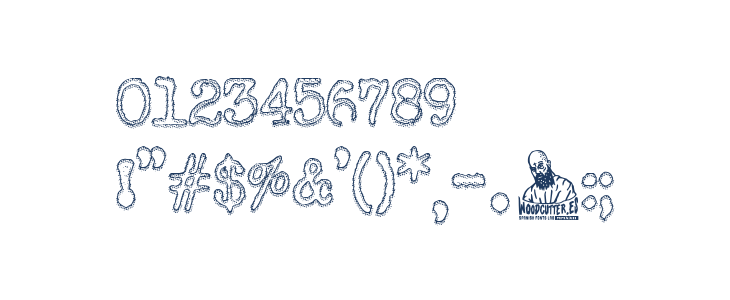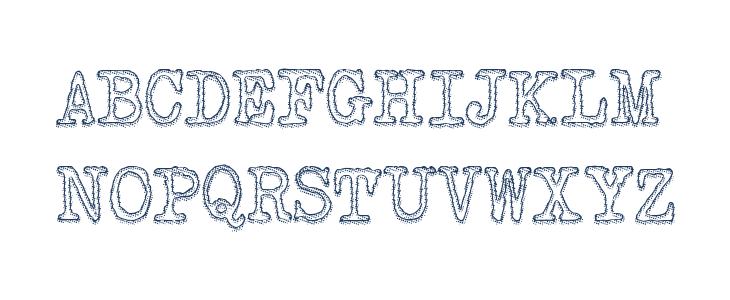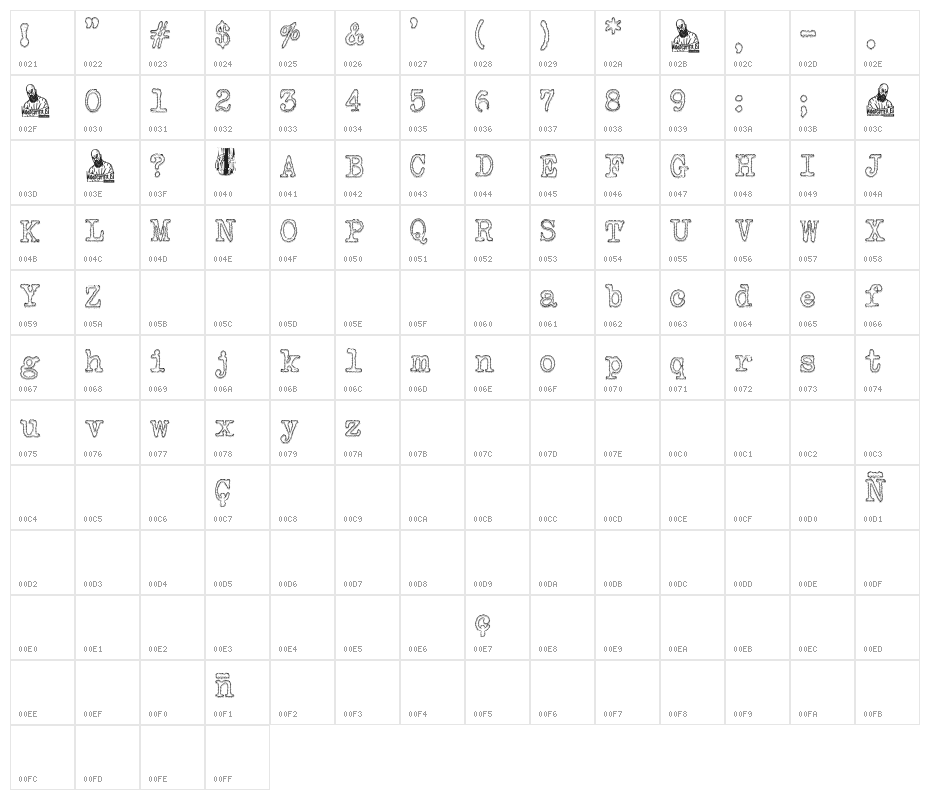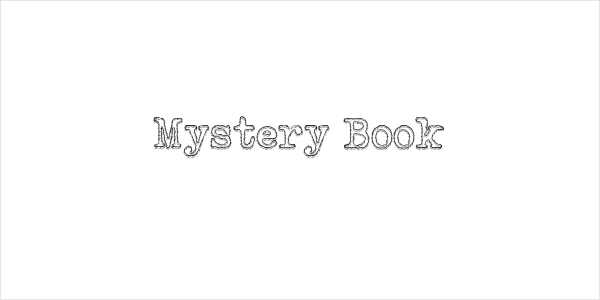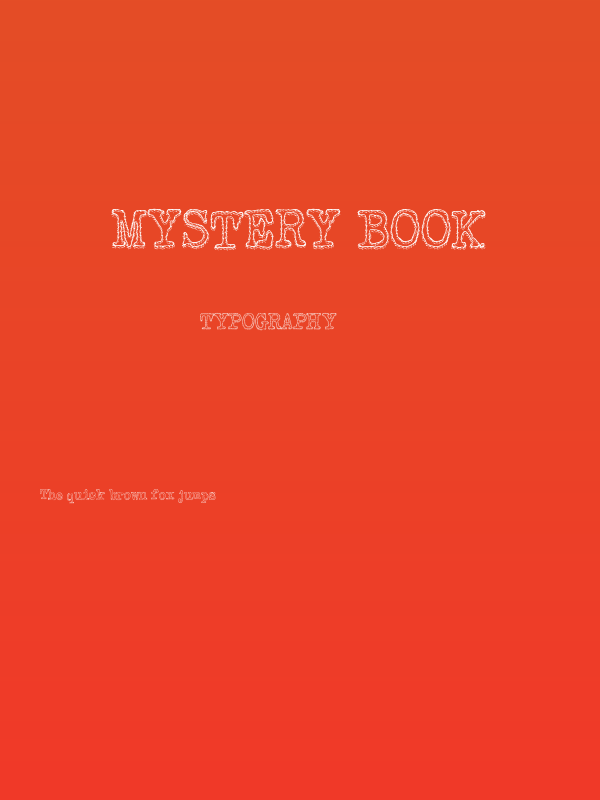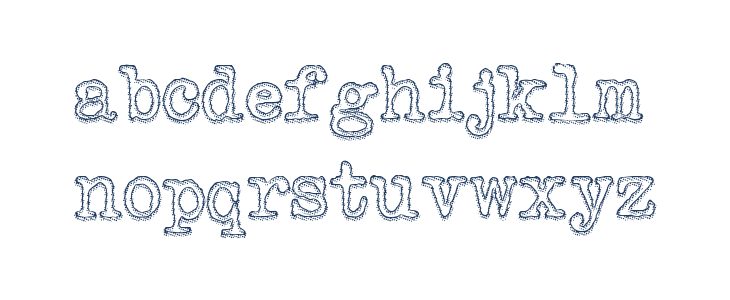
Mystery Book Font
Mystery Book Description
| Overall Style | Decorative, Vintage, Playful |
| Use Case | Headlines, Logos, Posters, Themed Graphics |
| Proposed Projects | Book covers, mystery or horror posters, Halloween invitations, themed event branding, escape room graphics. |